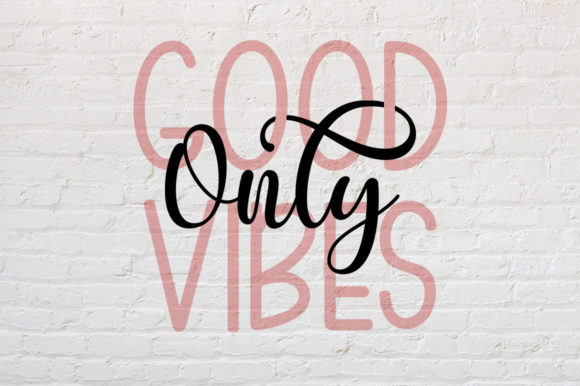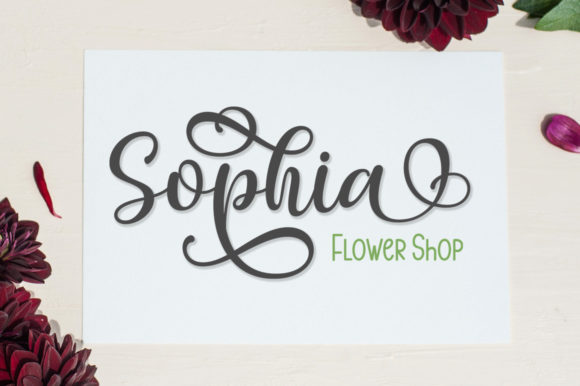
Romantic Spring Font
db-ku.com - Script & Handwritten -- Romantic Spring duo font is a romantic and sweet calligraphic typeface with characters dancing along the baseline. This will add a splash of luxury to any design project you want to create! This font is PUA encoded which means you can access all the amazing glyphs and ligatures with ease!